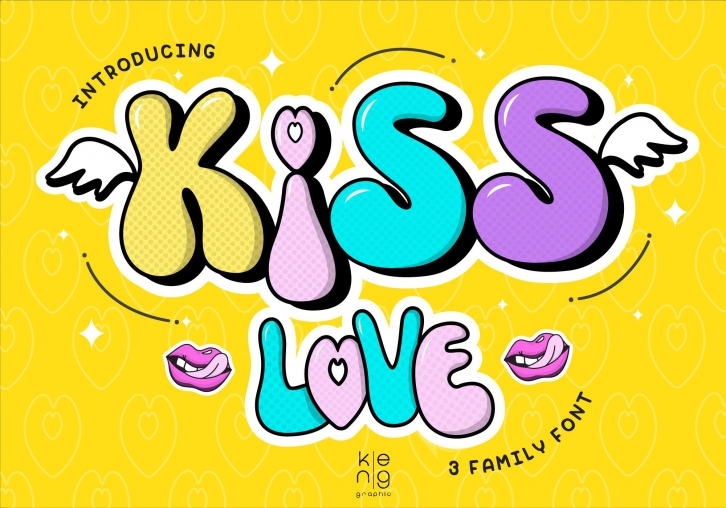
Kiss Love fonts is a retro, fun display font with a great punch. Everything written in this font will be instantly recognizable and will attract attention. It will work great for comic book style, online games, cards, love shirts, posters, movie titles, eye-catching social media posts, or anything that requires youthfulness and courage.